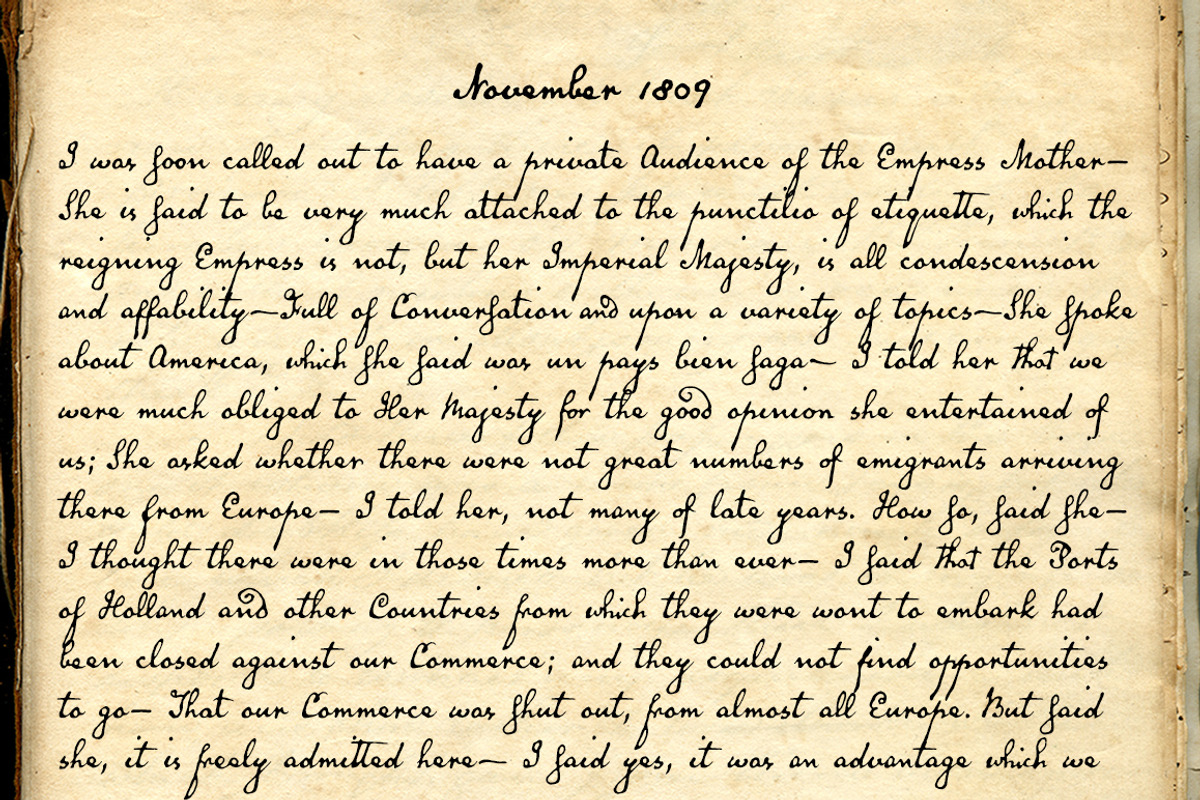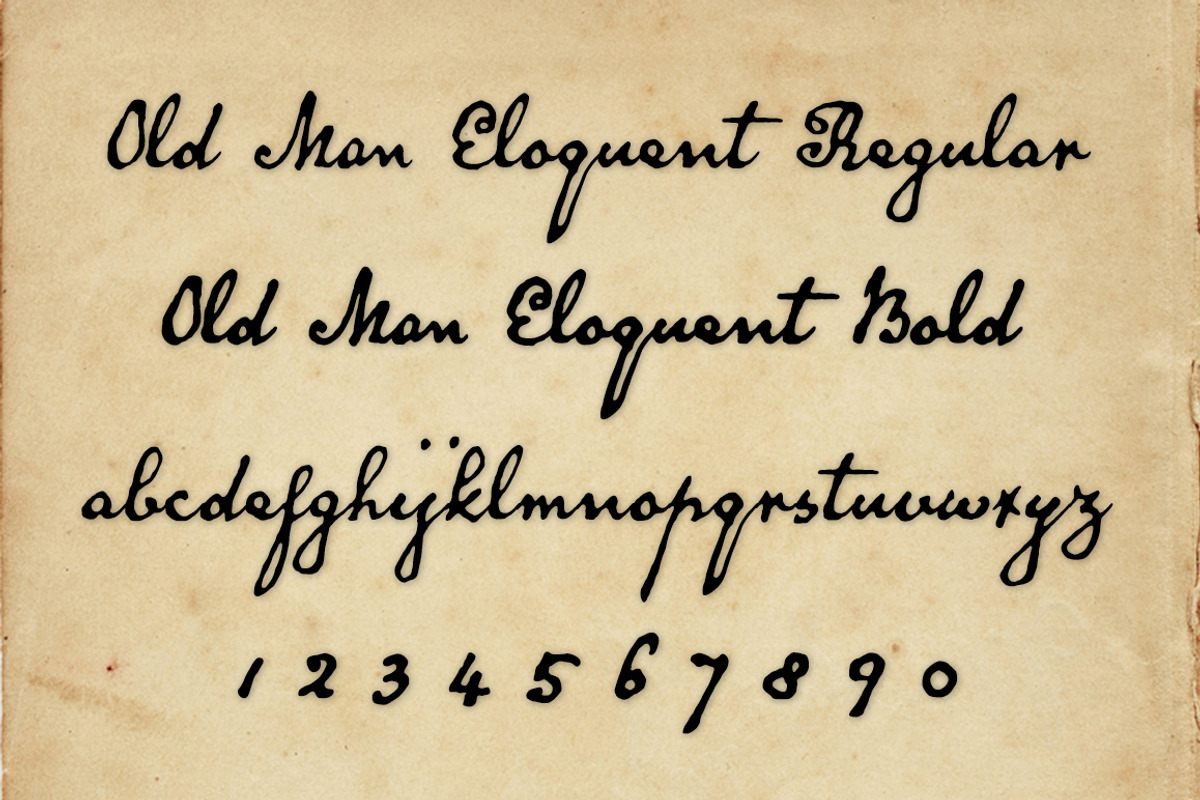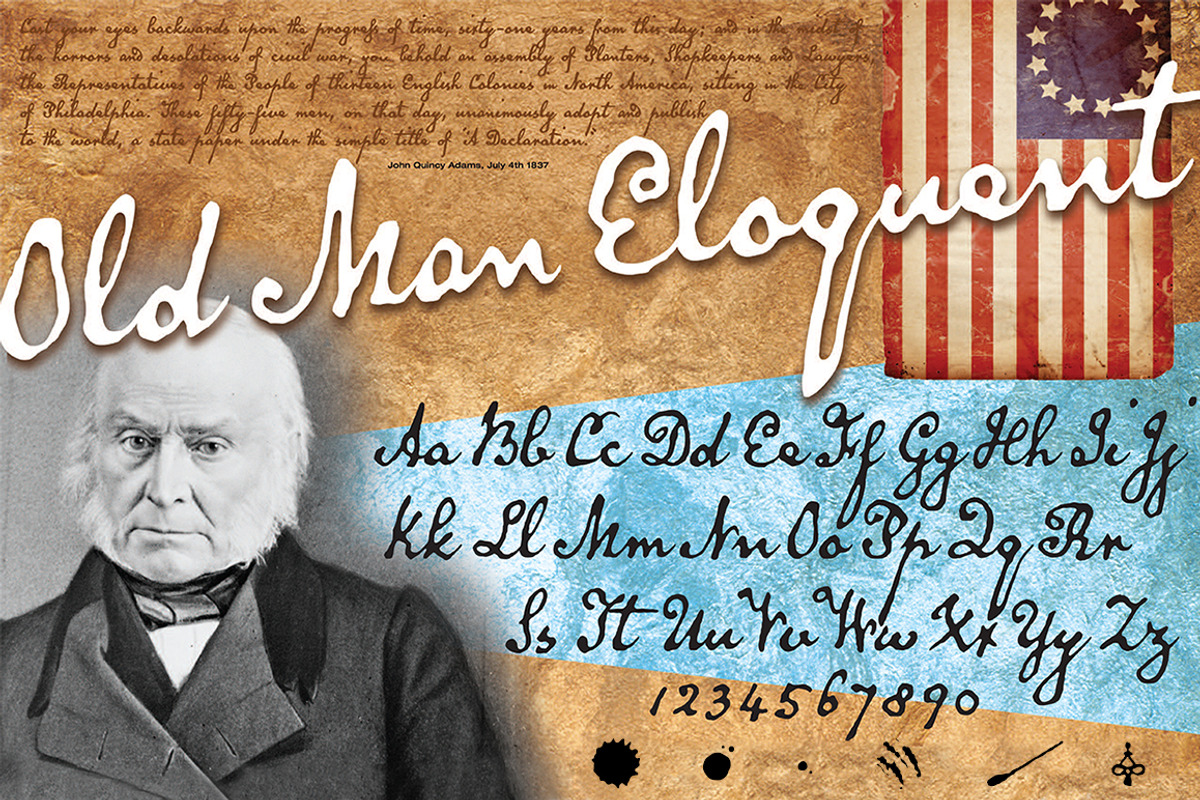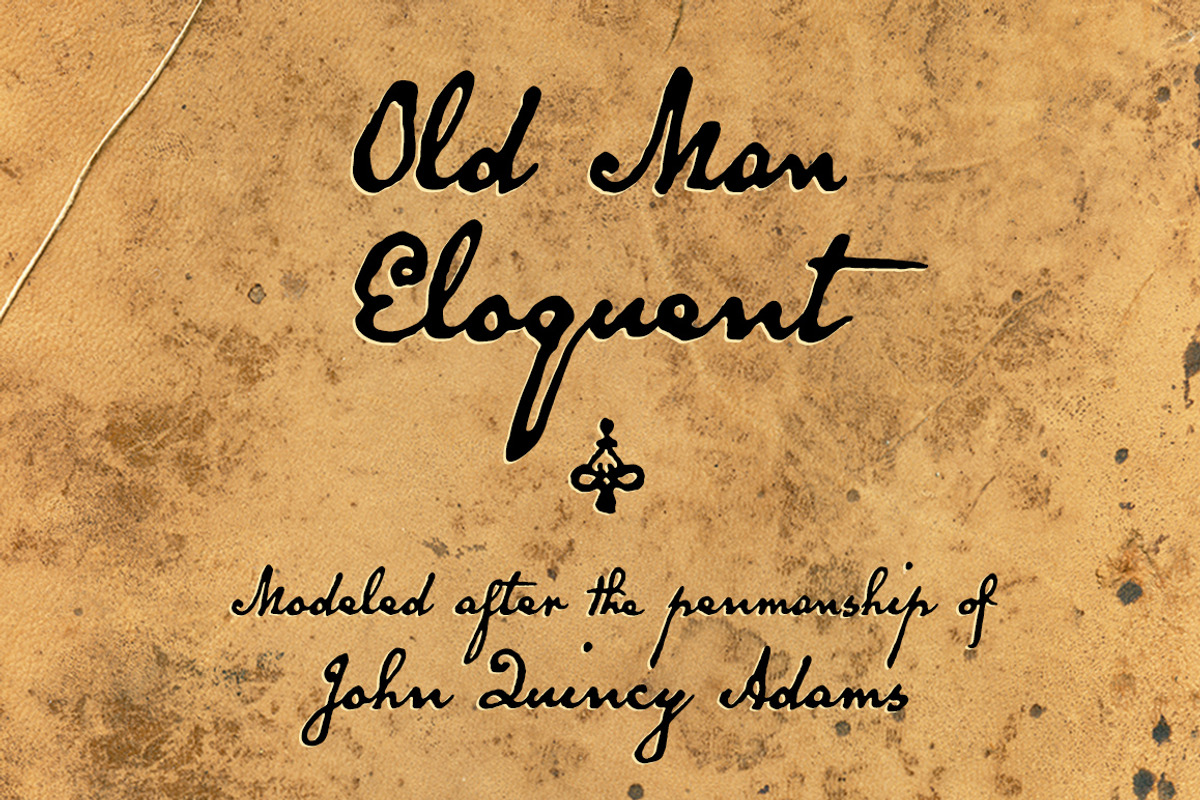
Old Man Eloquent, a vintage pen font.
Old Man Eloquent, a vintage pen font. by Three Islands Press is a font selected for branding, posters, packaging, typography.
- Old Man Eloquent comes with two weights—Regular and Bold—and nearly 800 glyphs, including alternate caps, numerous ligatures, both lining an
Why Old Man Eloquent, a vintage pen font. is worth a look
Old Man Eloquent, a vintage pen font. by Three Islands Press fits naturally into Branding, posters, packaging, typography.